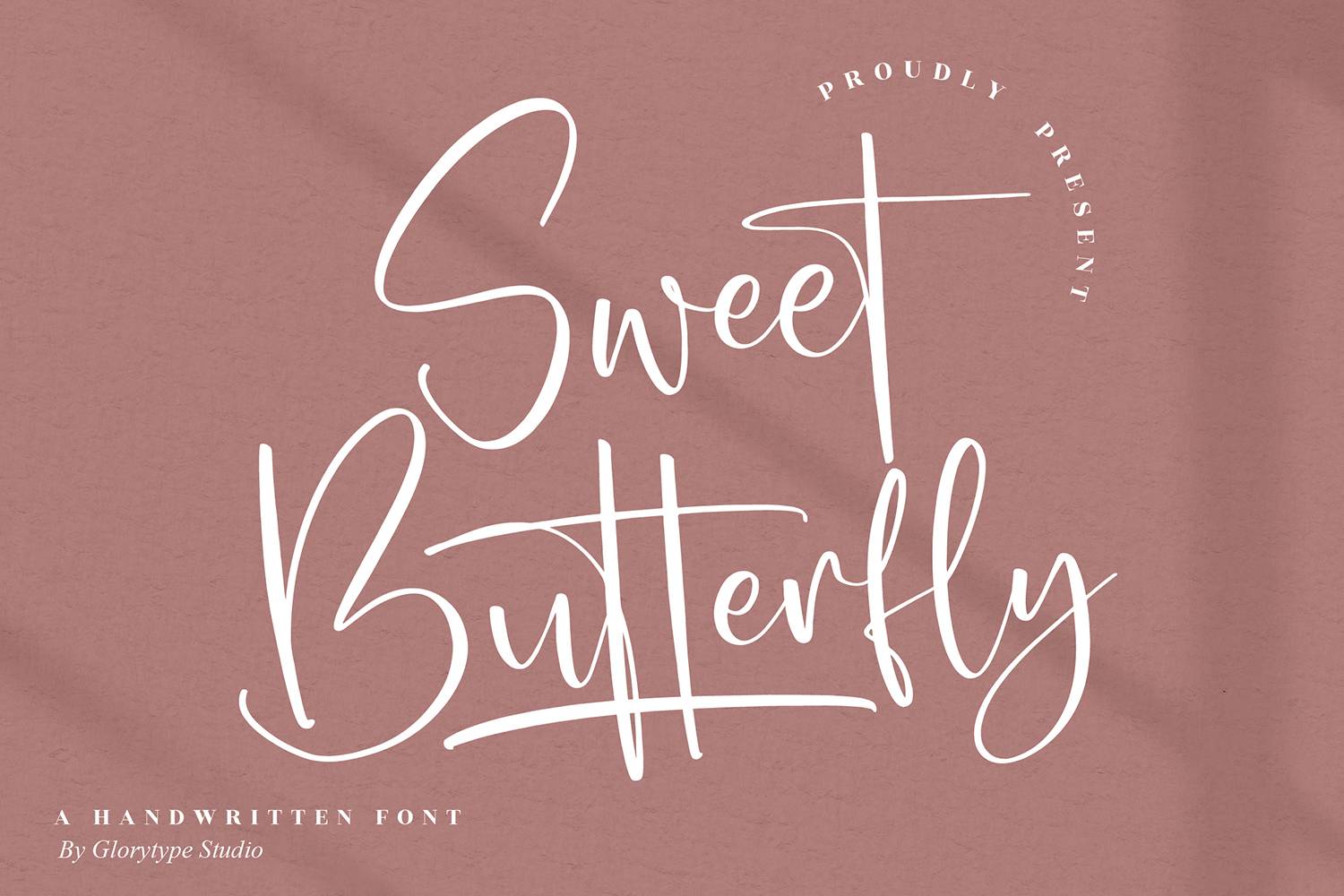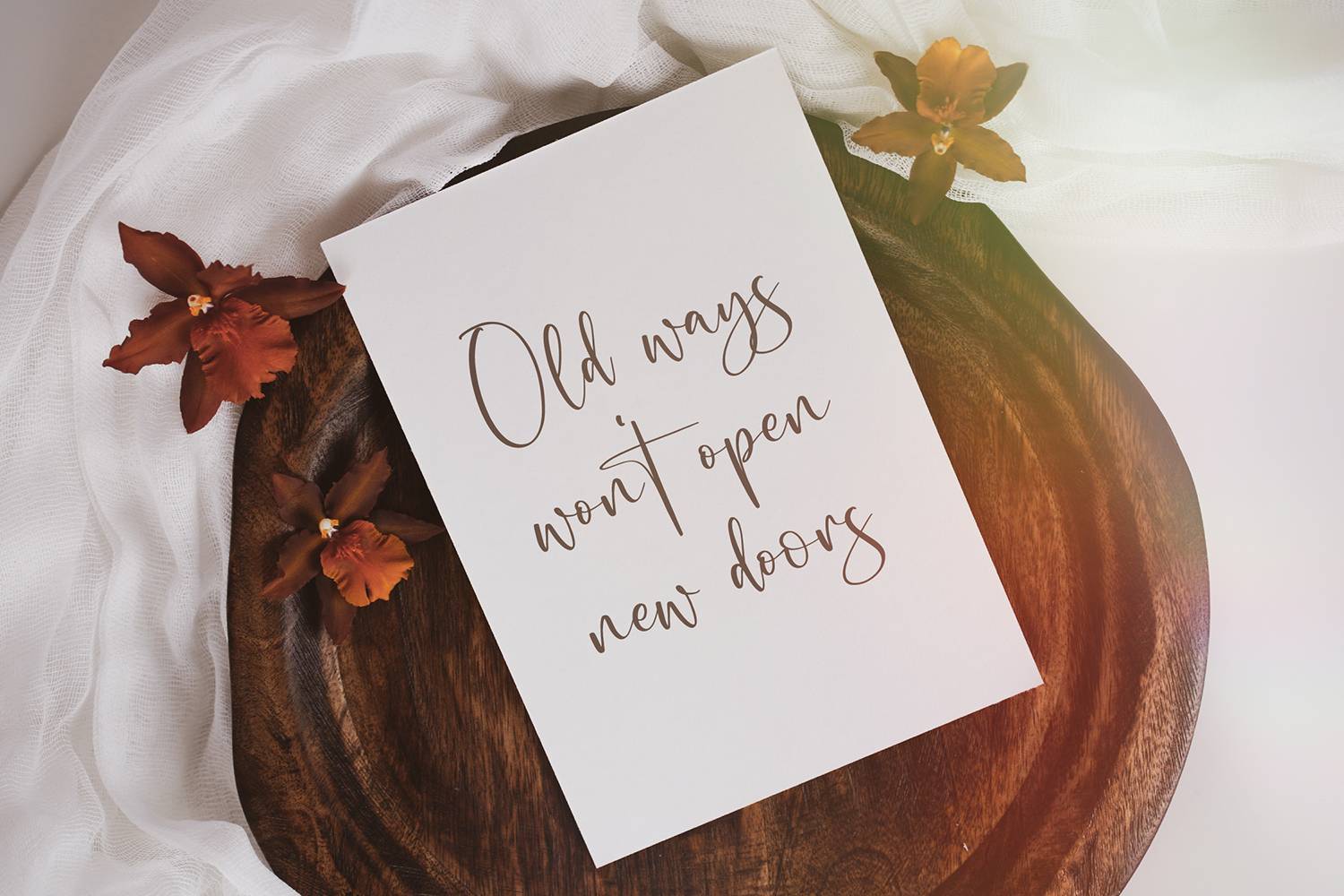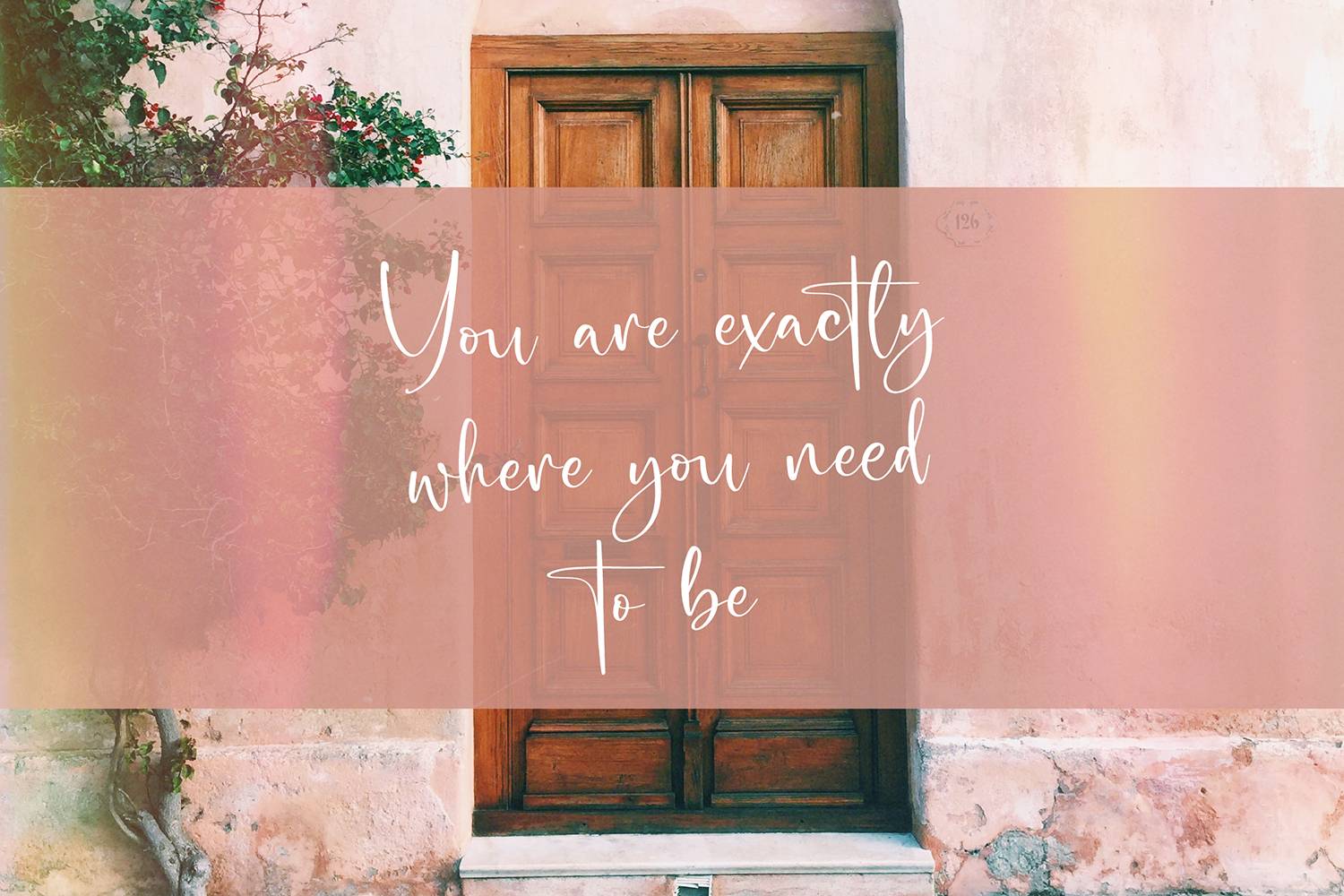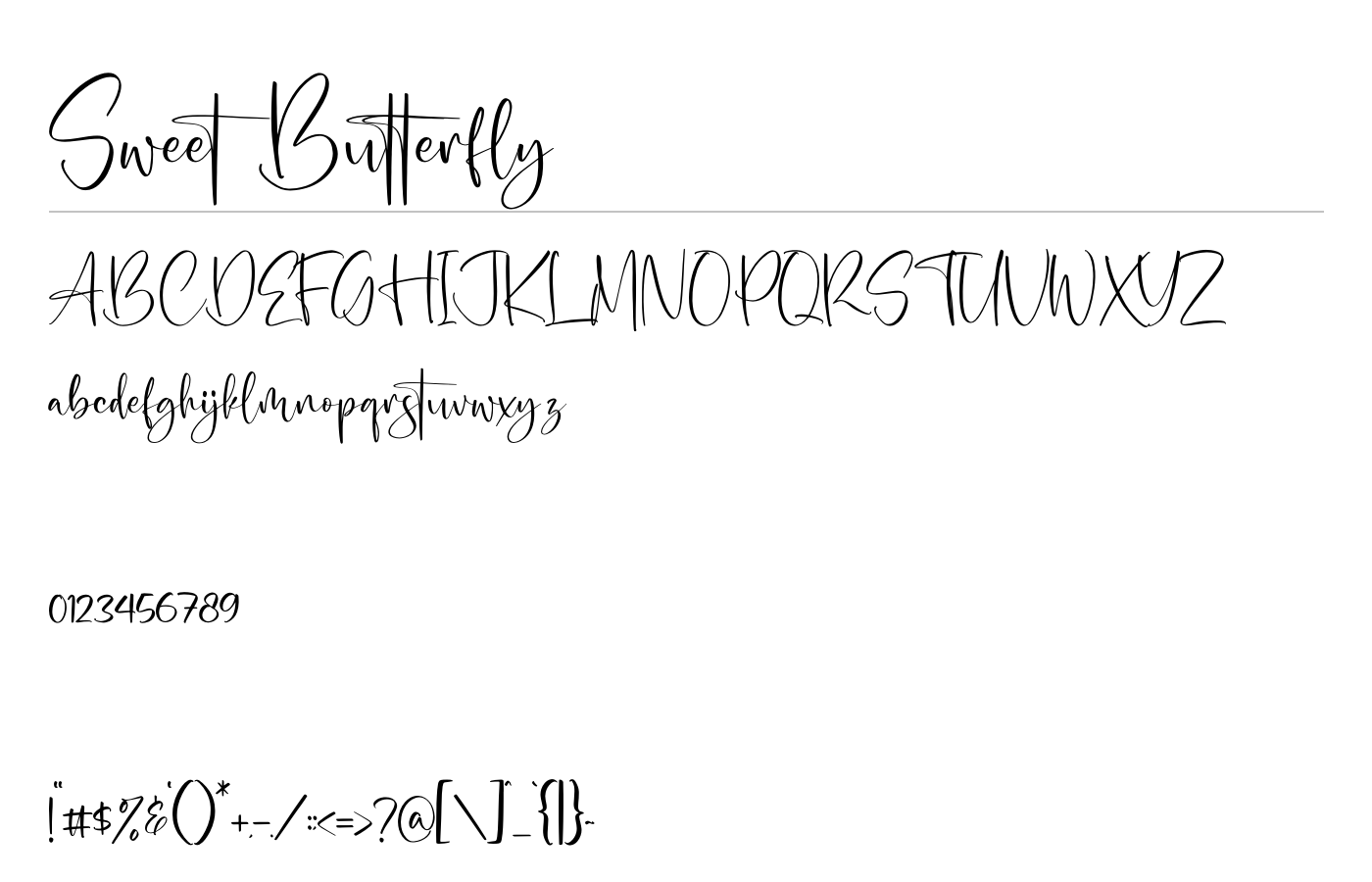
Sweet Butterfly is a delicate and elegant script font with a hand-drawn feel, featuring tall, slender letterforms with gentle, flowing strokes that create a charming and whimsical appearance. Its light weight and airy spacing make it ideal for feminine and romantic designs, perfect for invitations, branding, and packaging that seek a soft yet stylish touch. This font works beautifully in headlines and decorative text where a personal, graceful vibe is desired.
Sweet Butterfly Font
About Sweet Butterfly Font